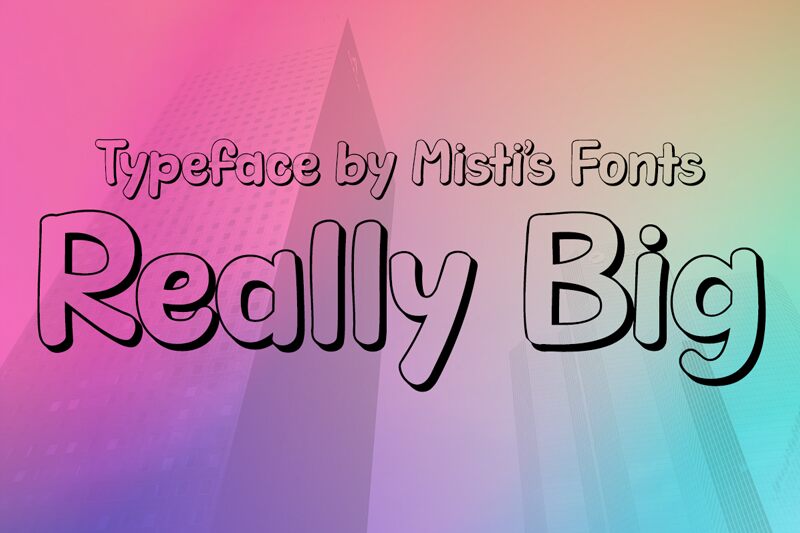
Really Big font by Misti's Fonts is a free font, quirky comic typeface with a fun and cheerful design. Its letters are playful and approachable, designed by a font specialist known for their vast library of jovial type experiments. This typeface lends itself to youthful and friendly formal communications that need a hint of modern vibes.
Introducing Really Big, a vivaciously bold font featuring a playful outline and dynamic drop shadow. This uniquely cartoon-inspired typeface ensures every phrase stands out, making it an ideal choice for captivating headings, impactful posters, and vibrant designs that exude joy. Infuse your projects with irresistible energy and a distinctive personality, allowing your words not just to speak but to truly roar with style.